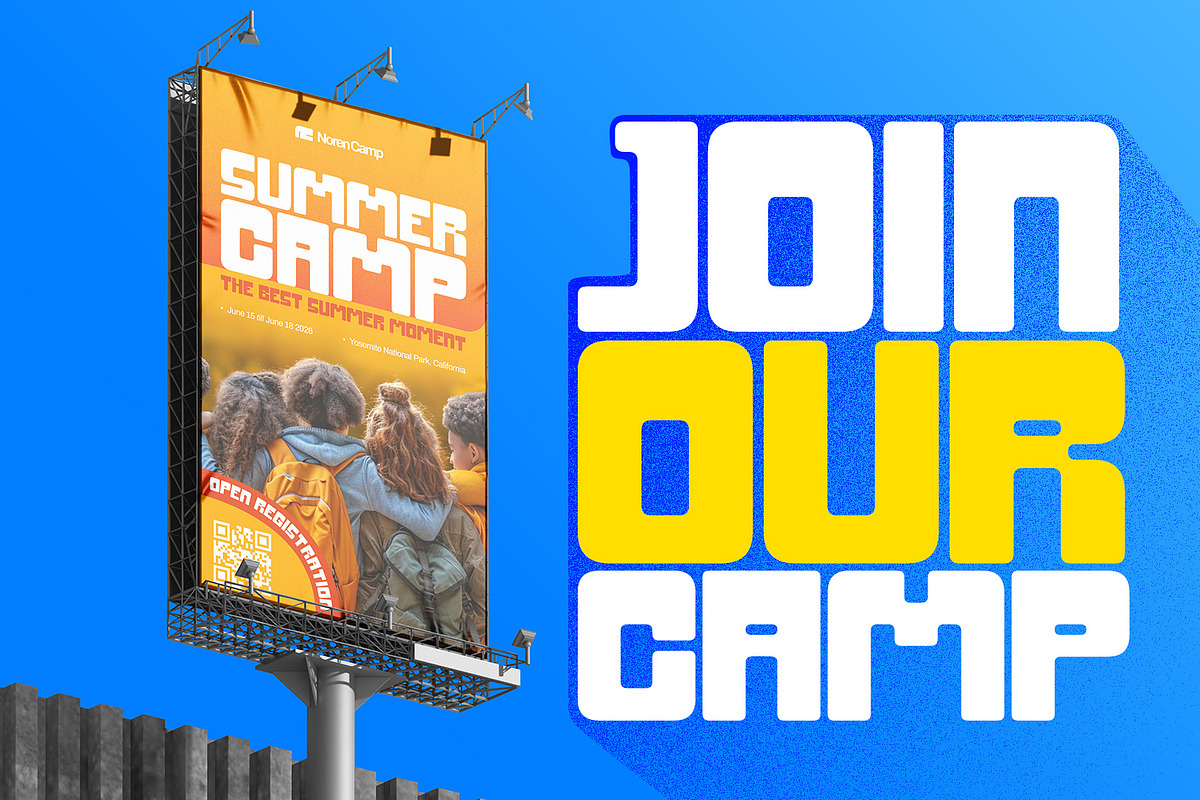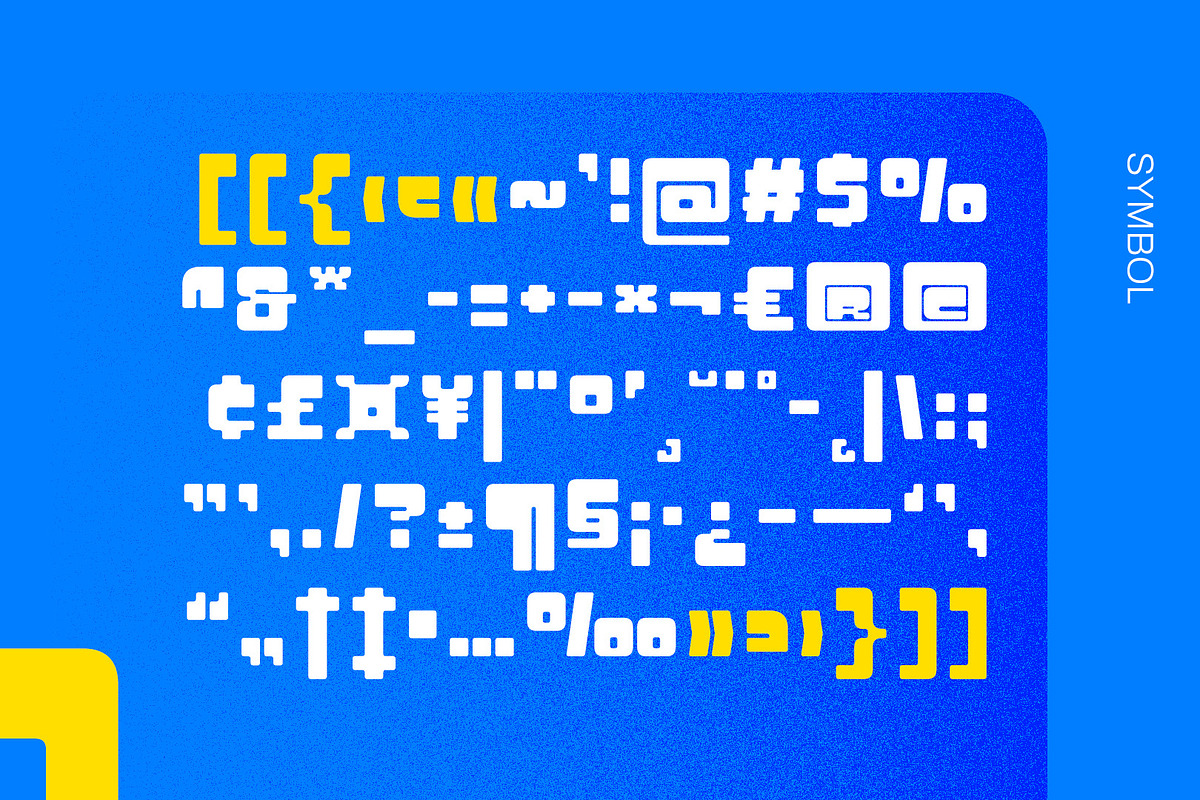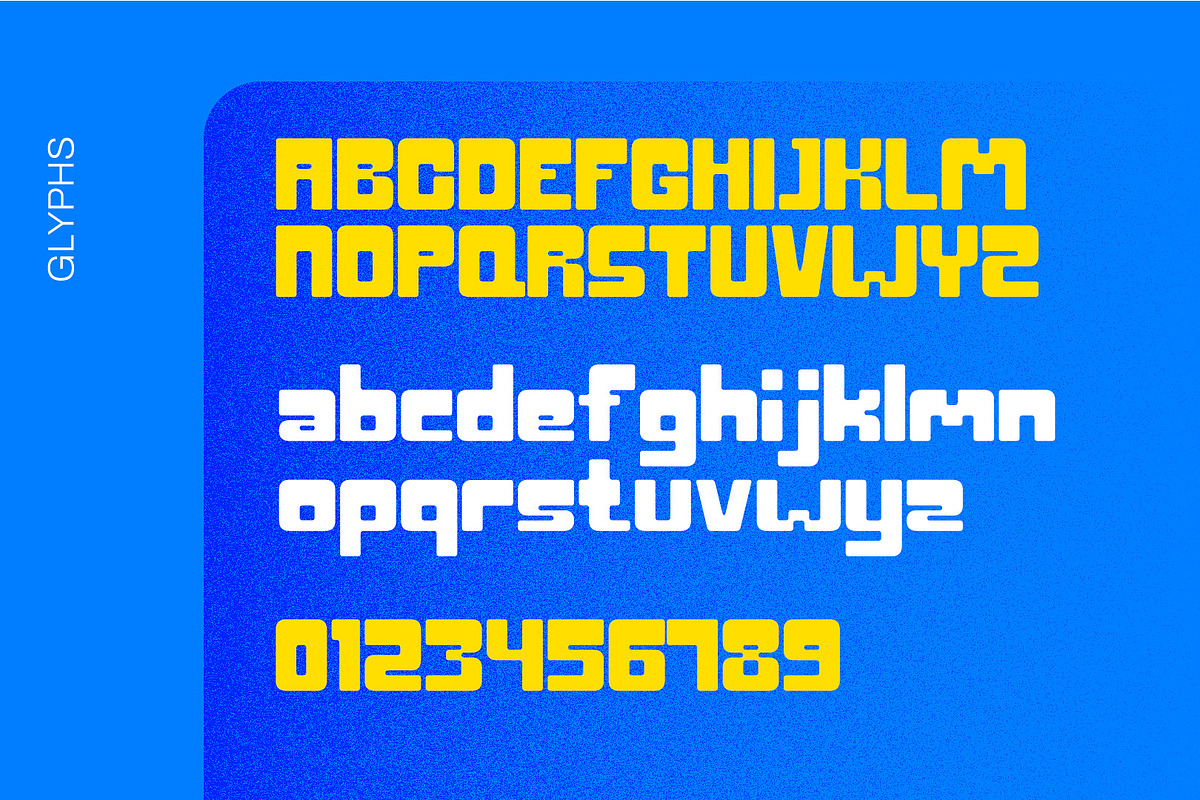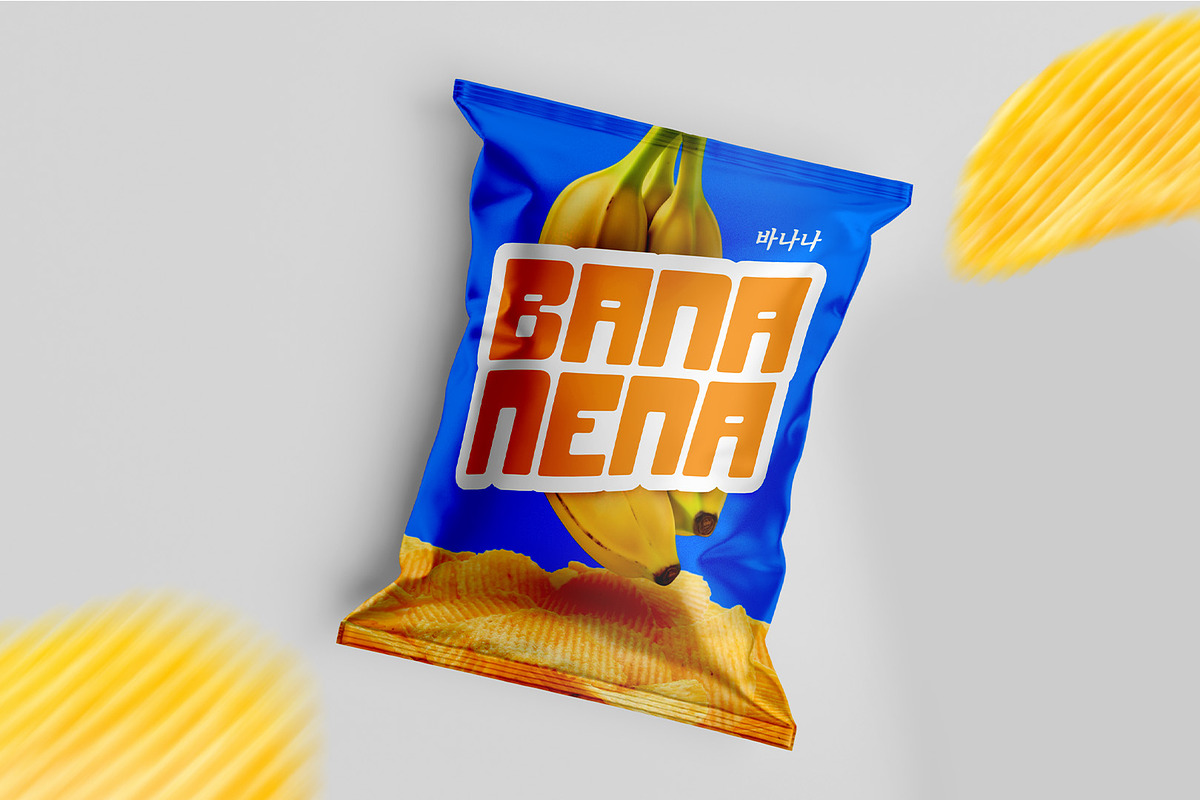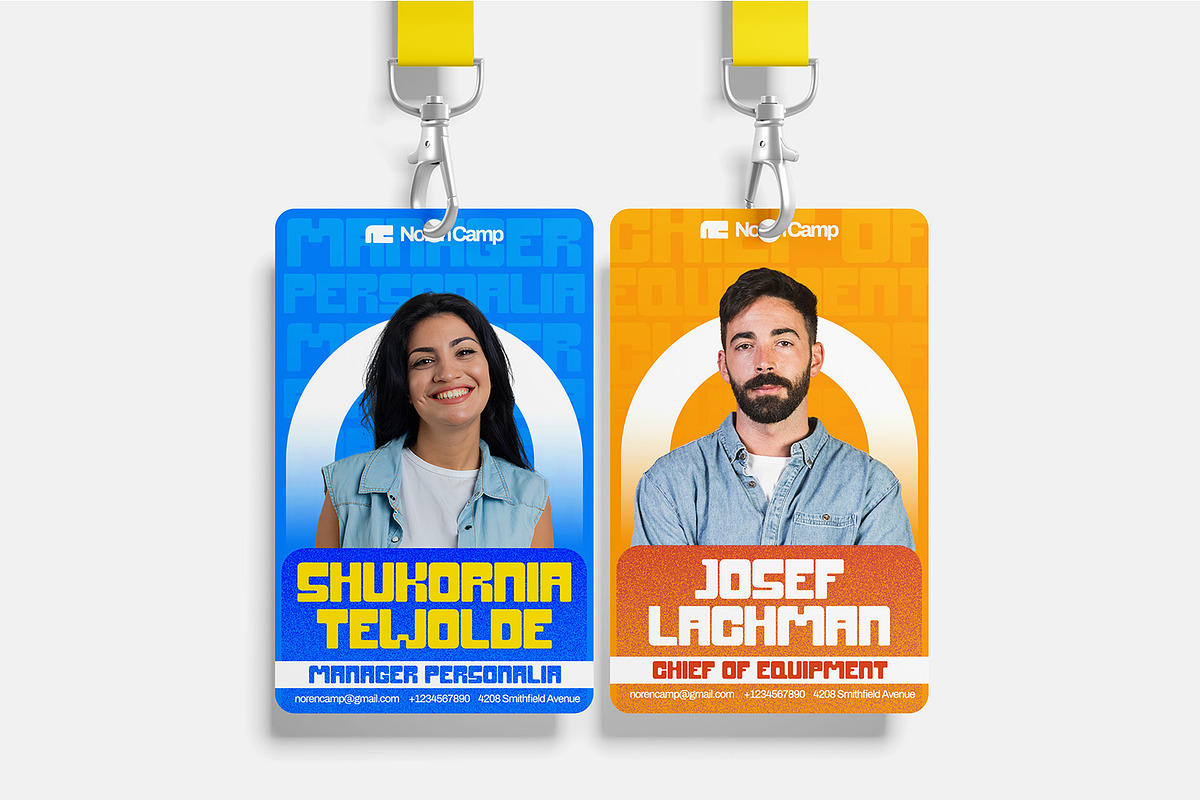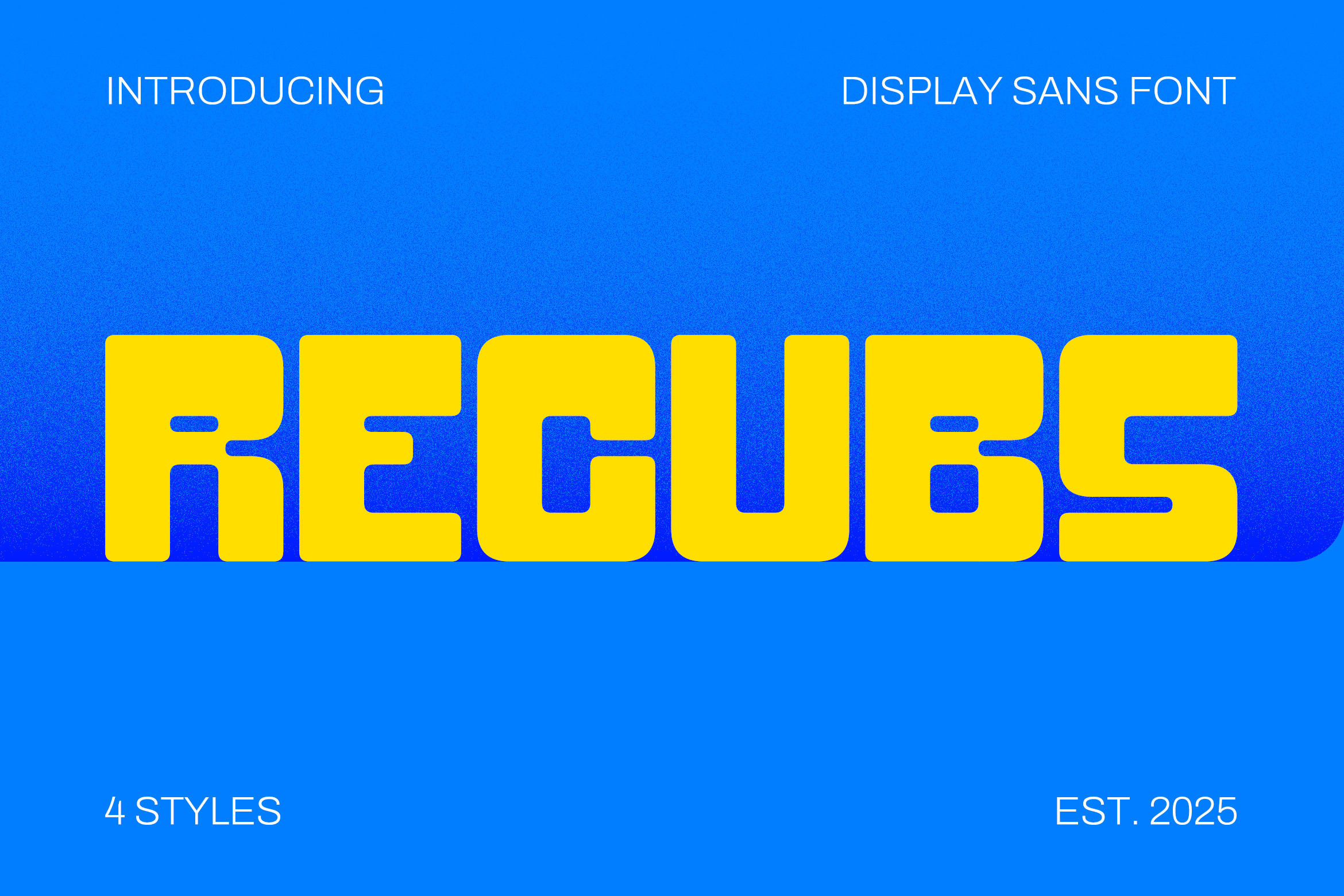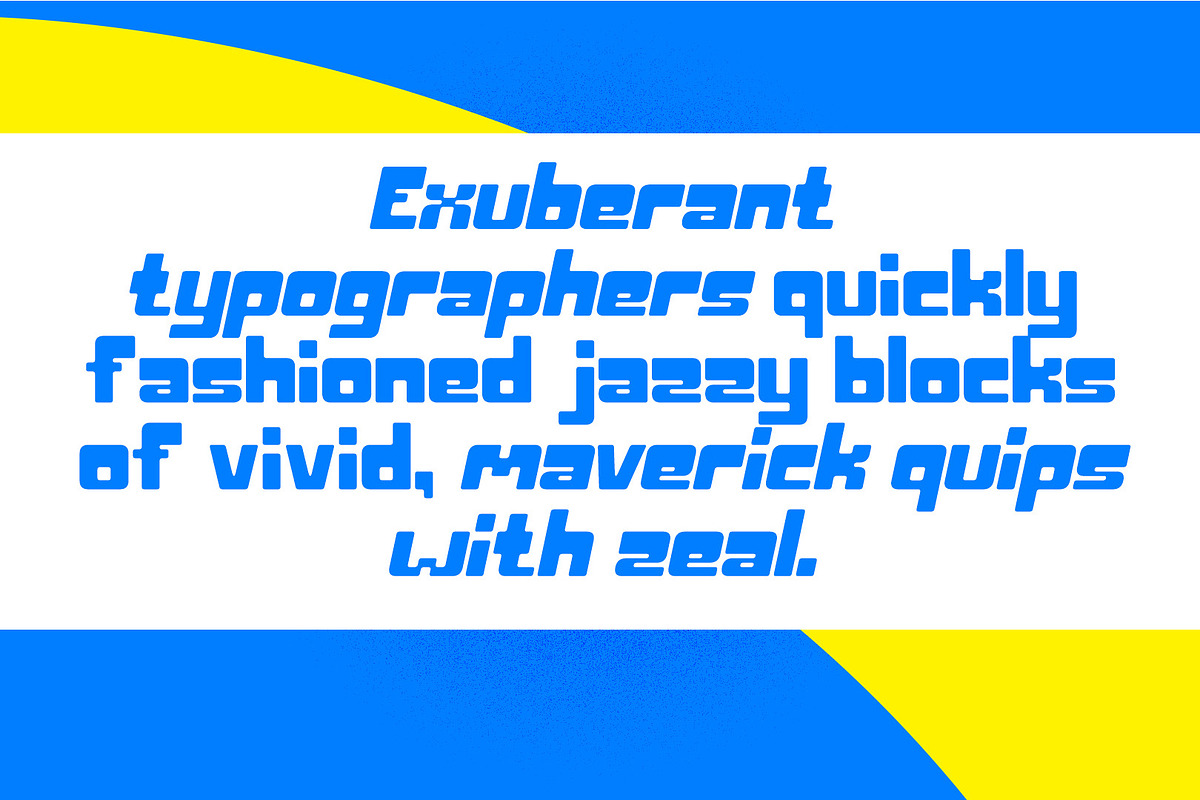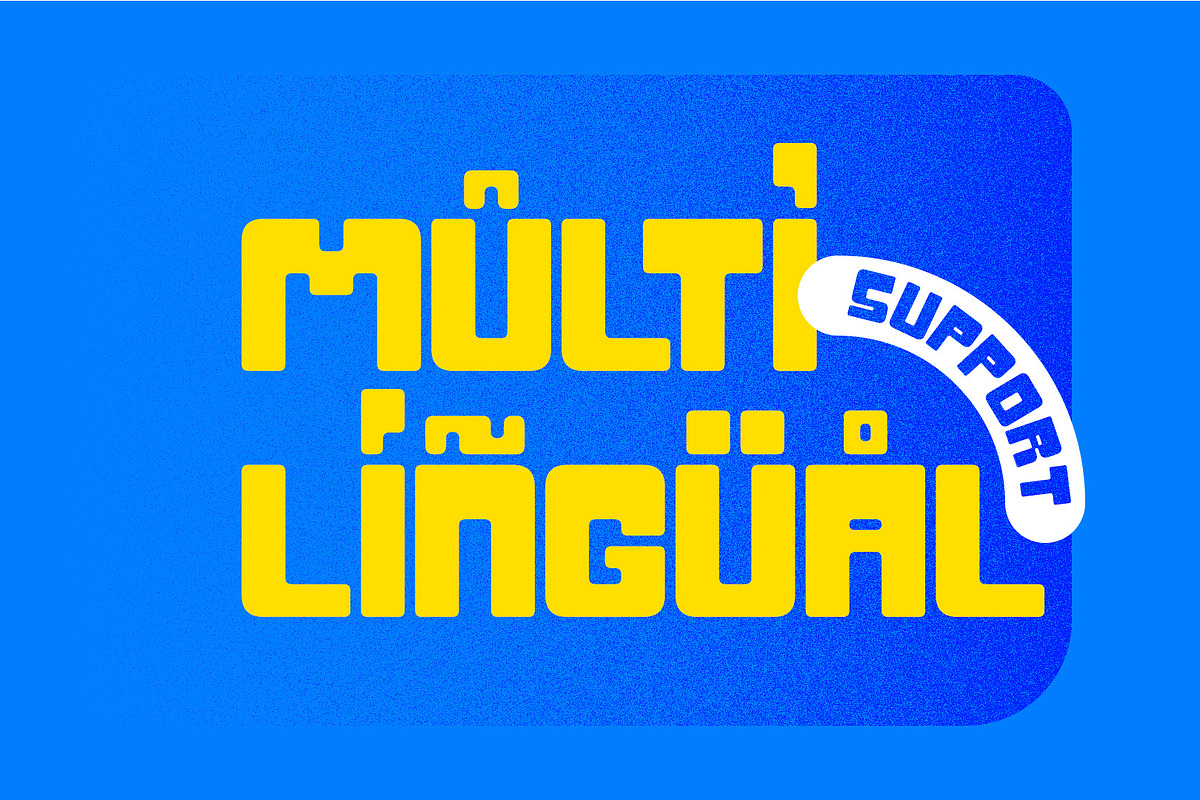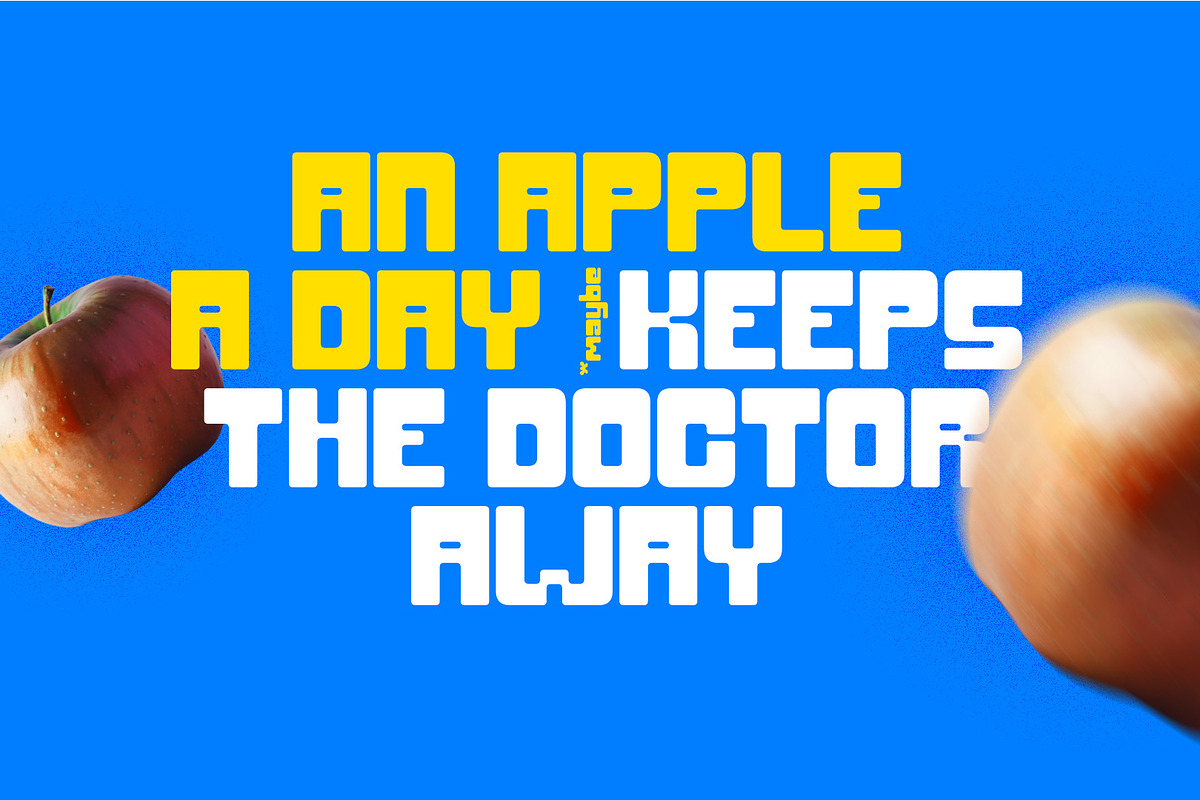
Recubs - Display Sans Font
Recubs marries hard-edged structure with an approachable charm. The meticulously crafted letterforms boast a sturdy, geometric framework that lends an innovative, tech-forward feel, while the gentle curves soften the impact, evoking a playful mood. This deliberate balancing act not only makes the font highly legible on screens and print alike but also provides a dynamic visual presence that effortlessly anchors creative projects.
- 2 Styles Font : Regular, Oblique
- Standard letter A-Z and a-z
- Numeral, Symbol, and Punctuations
- OpenType Feature